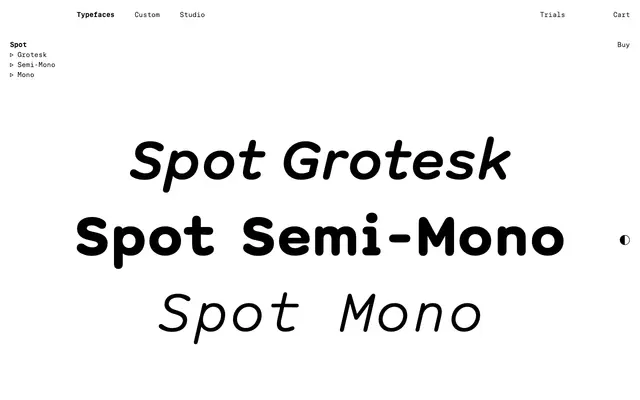
Spot
Spot specimen from Schick Toikka
A three-flavour family (proportional Grotesk, fixed-pitch Mono, hybrid Semi-Mono) in four weights with italics; a variable font ties them via a spacing axis.
Spot is an approachable sans serif family with a warm personality and a soft touch, available as proportional Spot Grotesk, fixed-pitch Spot Mono and hybrid Spot Semi-Mono, optionally as a single variable font. The Mono came first and shapes the whole family: a uniform stroke width, rounded ends and distinctive dots evoke a typebar striking an inked ribbon, while the wide proportions and large x-height read as restrained capitals that produce even texture in body copy. Wide letters and open spacing keep it readable in marginalia and captions, while larger sizes bring its overall roundness to the fore as a friendly display option. The variable version drives weight, slant and a spacing axis that tunes the exact degree of monospacedness, with intermediate instances producing tiny stubs on narrow glyphs that grow into wide bars in the Mono. Each of the three branches has four weights upright and italic, with Latin Extended, sub- and superscripts, innovative fractions and a kit of playful and functional icons.
Schick Toikka note that Spot's monospace came first and informs the whole family: the uniform stroke width, rounded ends and distinctive dots evoke a typebar hitting an inked ribbon. The wide proportions and large x-height also originate from this typewriter logic.